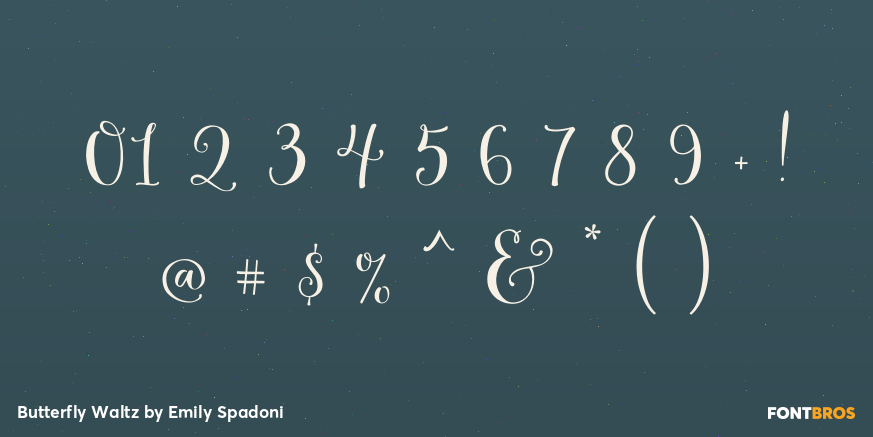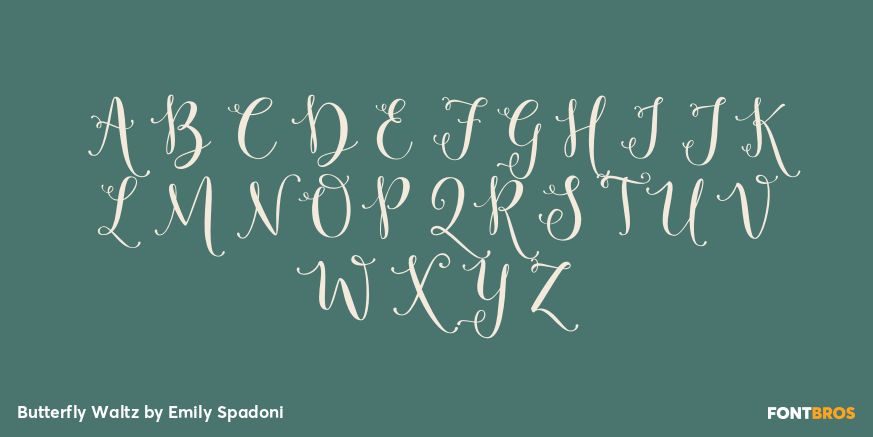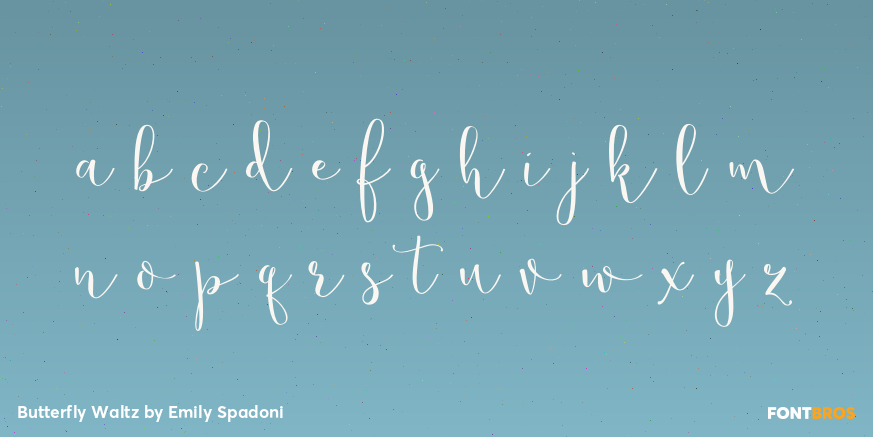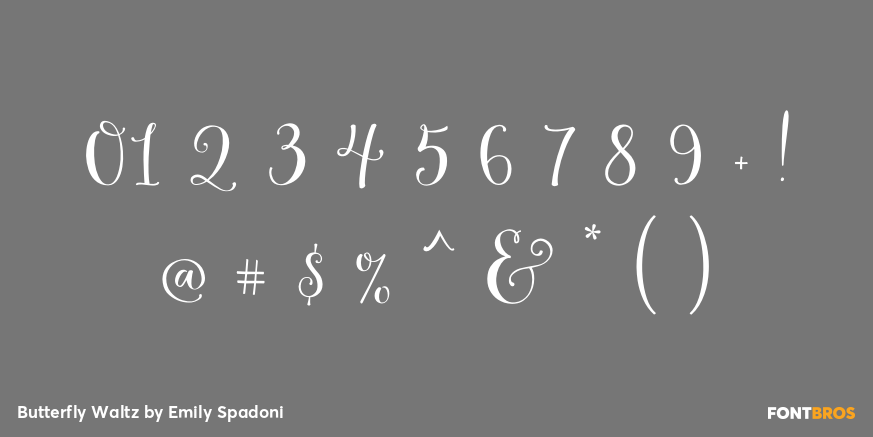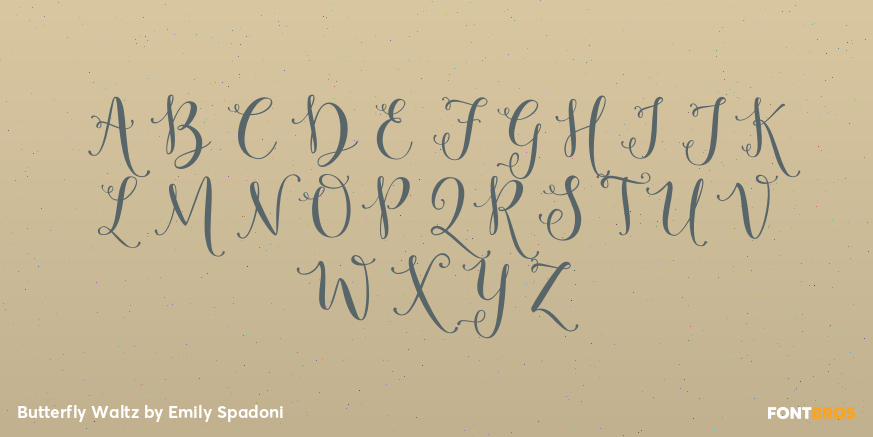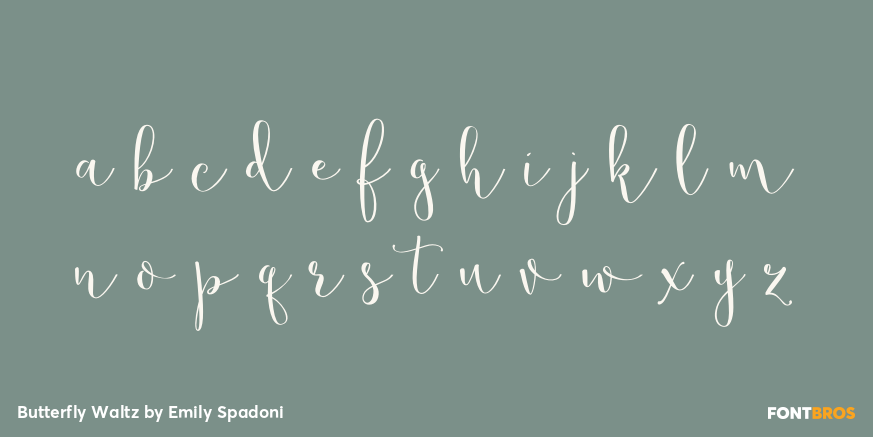
Butterfly Waltz
Font Family by Emily Spadoni
Do you Love the new styles of hand-lettered calligraphy you see on Pinterest and alike? Meet Butterfly Waltz. The perfect mix of girly bounce, elegant cursive, and fun swirly charm. Sweet hand-drawn characters dance along the baseline. The combinations of sweet swirly letters are endless. Create your own unique text style with an authentic hand-lettered look on invitations, envelopes, stationary, logos, blogs and more!
4 files of additional decorative glyphs, many additional common letter combinations, and even the multi-lingual glyphs are all decorated. Use "Left" and "Right" to create your own decorated word styles. In total hundreds of swirly letter combinations, creating an authentic hand-made, hand-lettered style text.